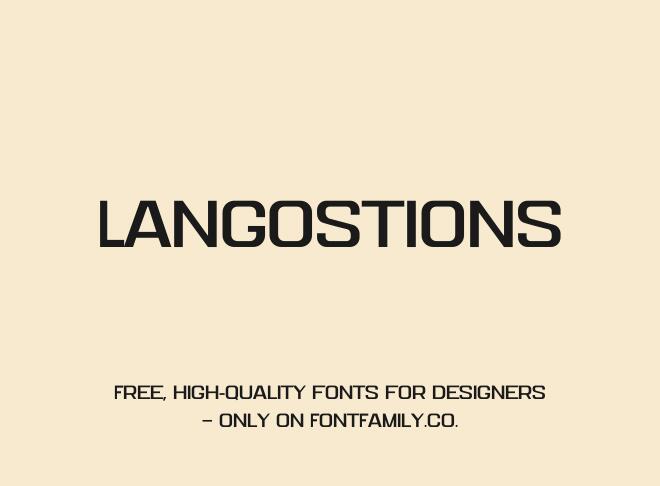
Langostions Font
Introducing Langostions Font, a modern geometric sans serif typeface. With its clean lines and sharp edges, this font exudes a contemporary and professional aesthetic. Langostions Font is designed to be versatile, making it an excellent choice for a variety of design projects such as logos, headlines, and branding materials. Compared to other fonts, Langostions Font stands out for its unique character set that combines simplicity with a touch of sophistication. Furthermore, it offers excellent legibility even at smaller sizes, making it a functional choice for both print and digital designs. This font is free for personal use, making it a valuable addition to any designer's toolkit.